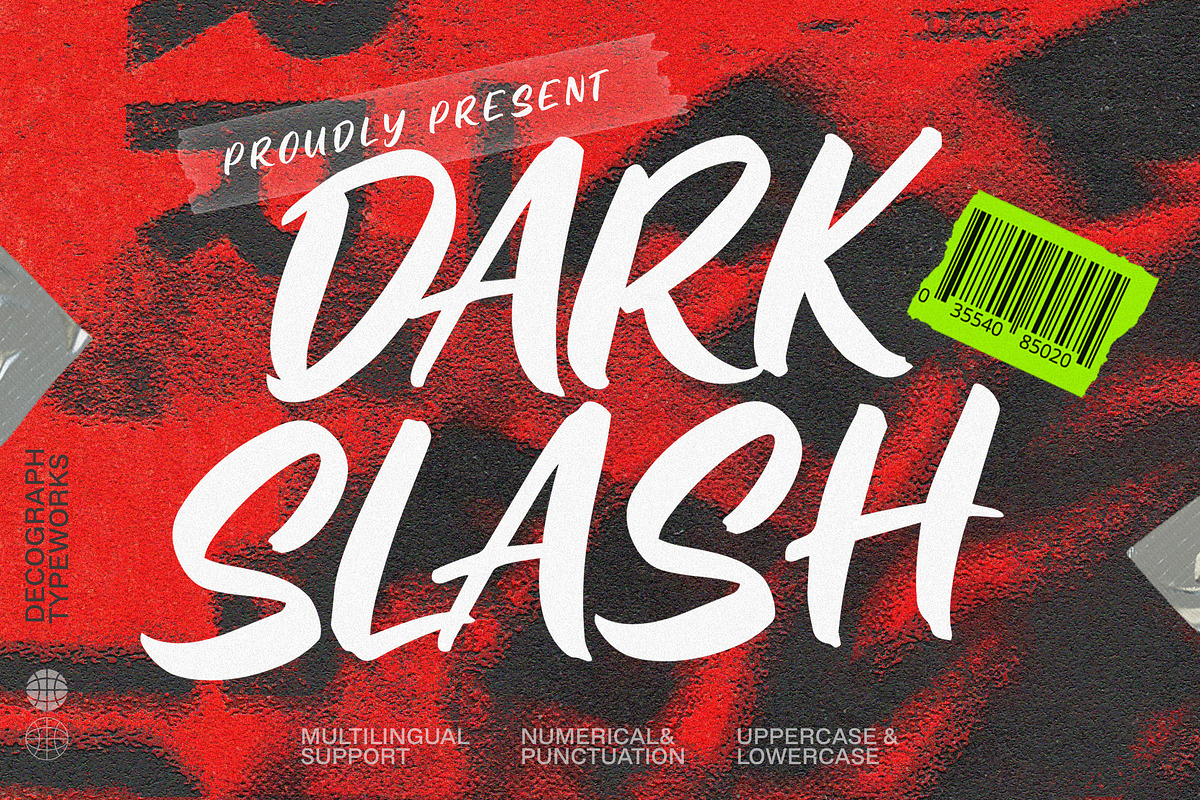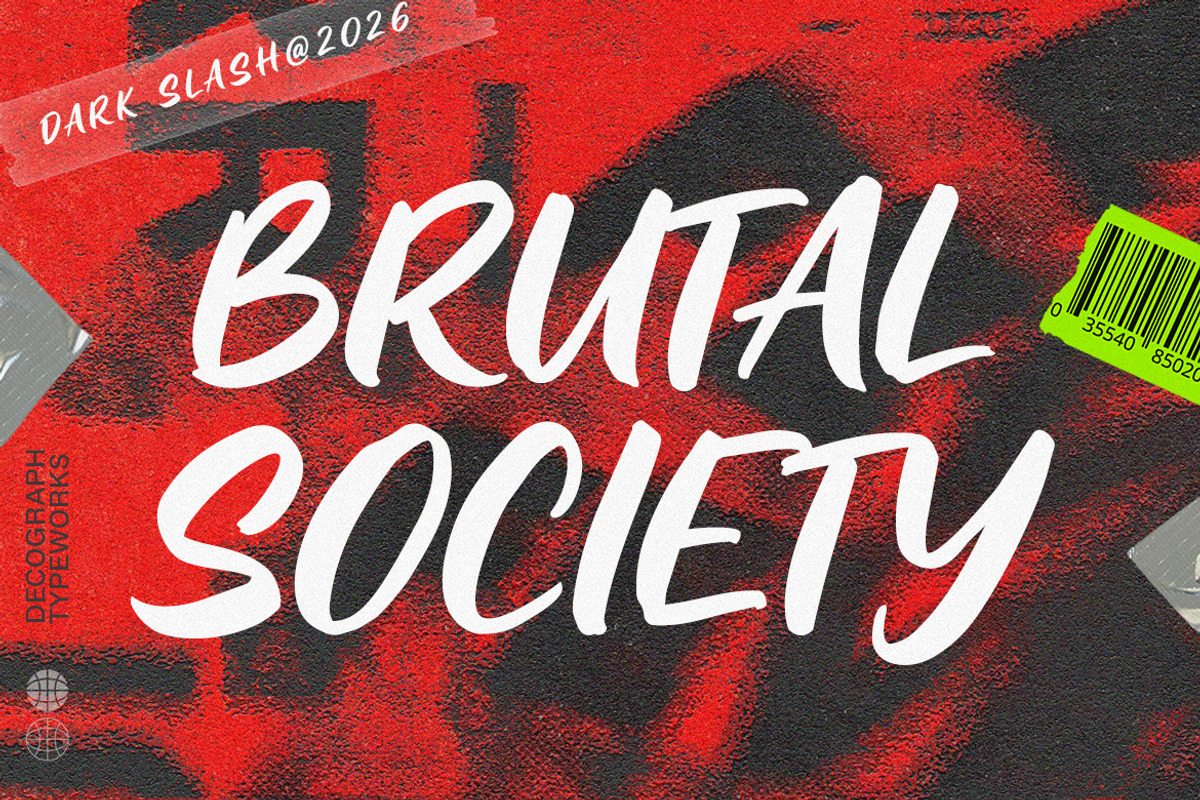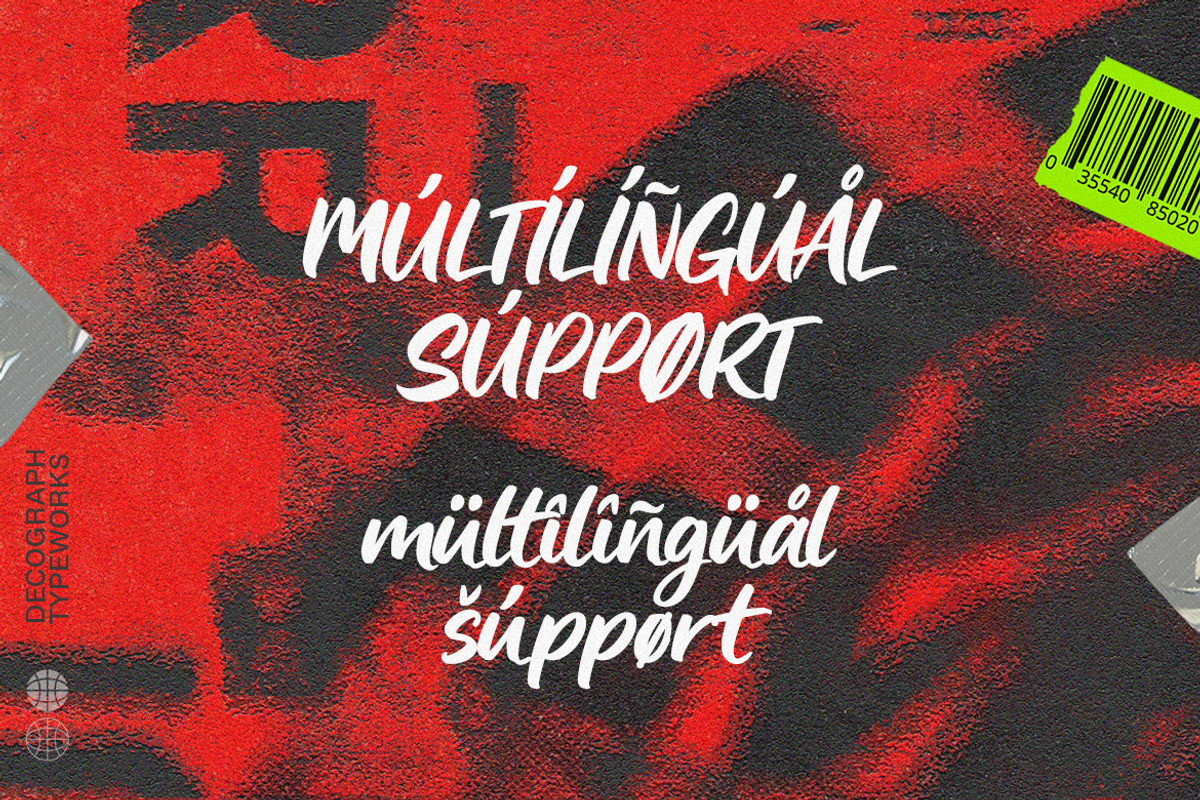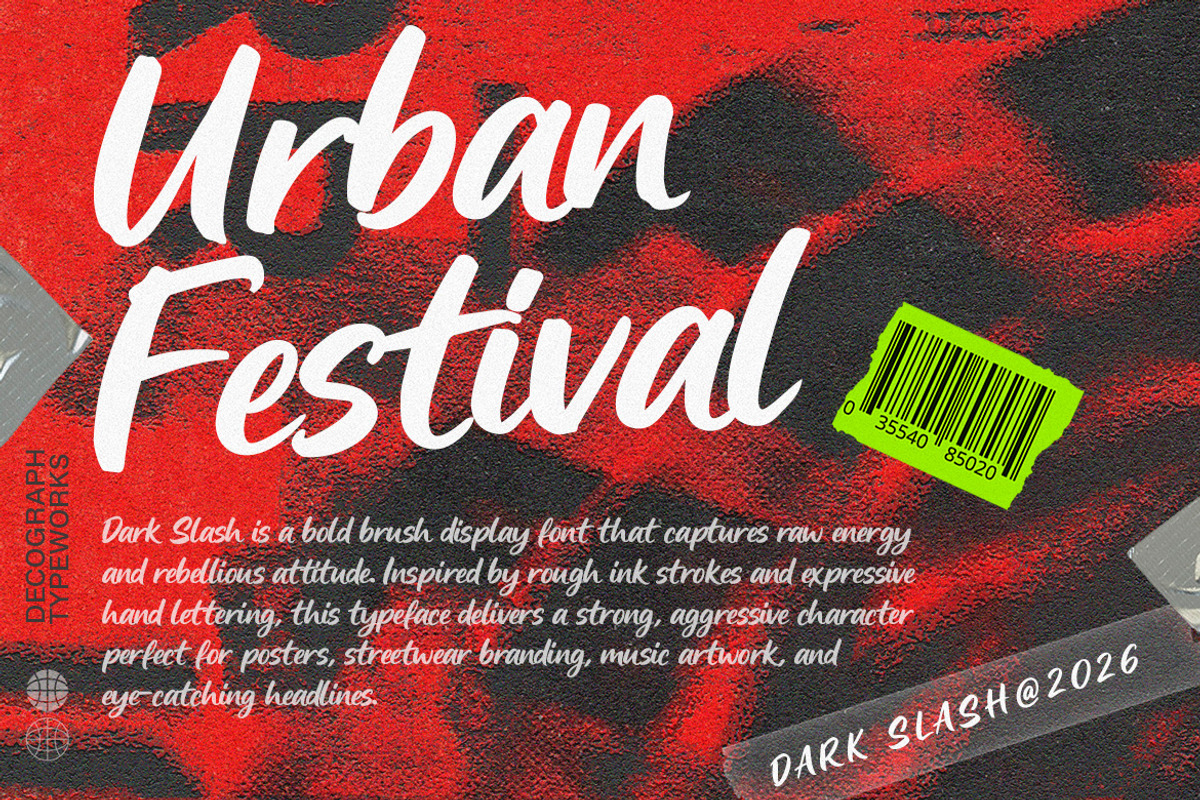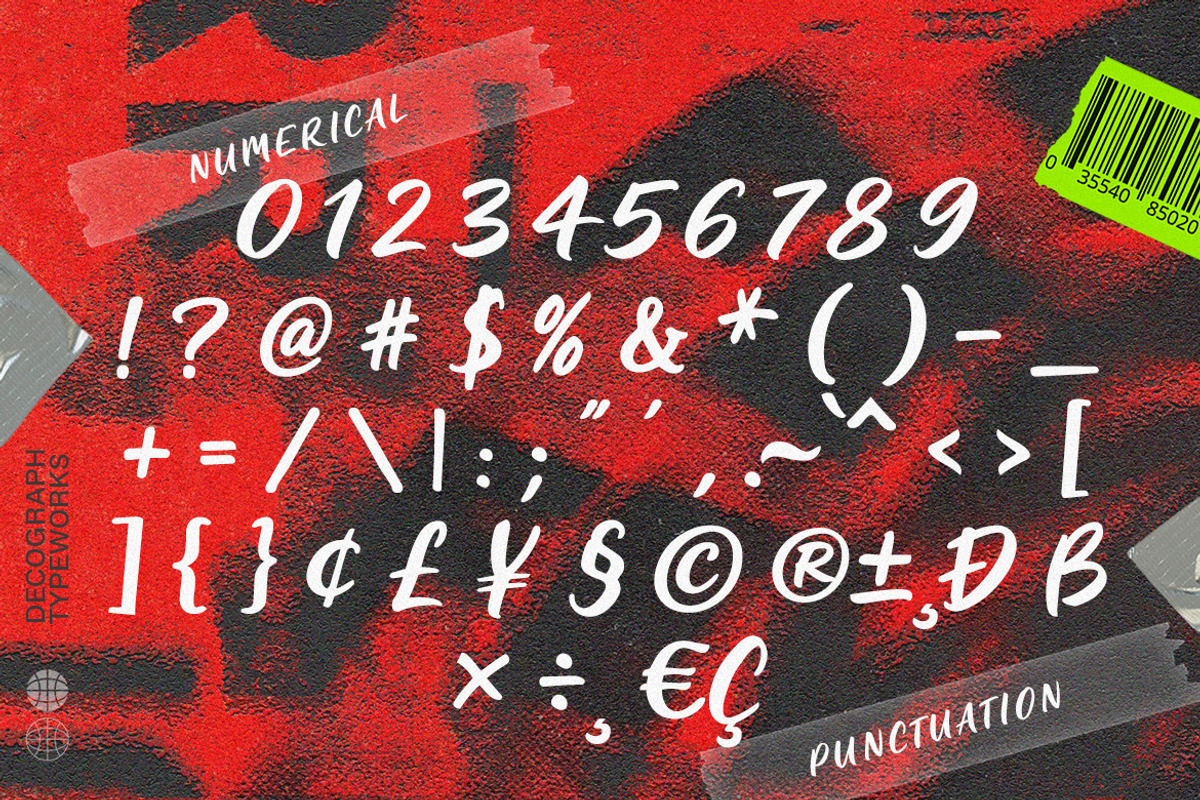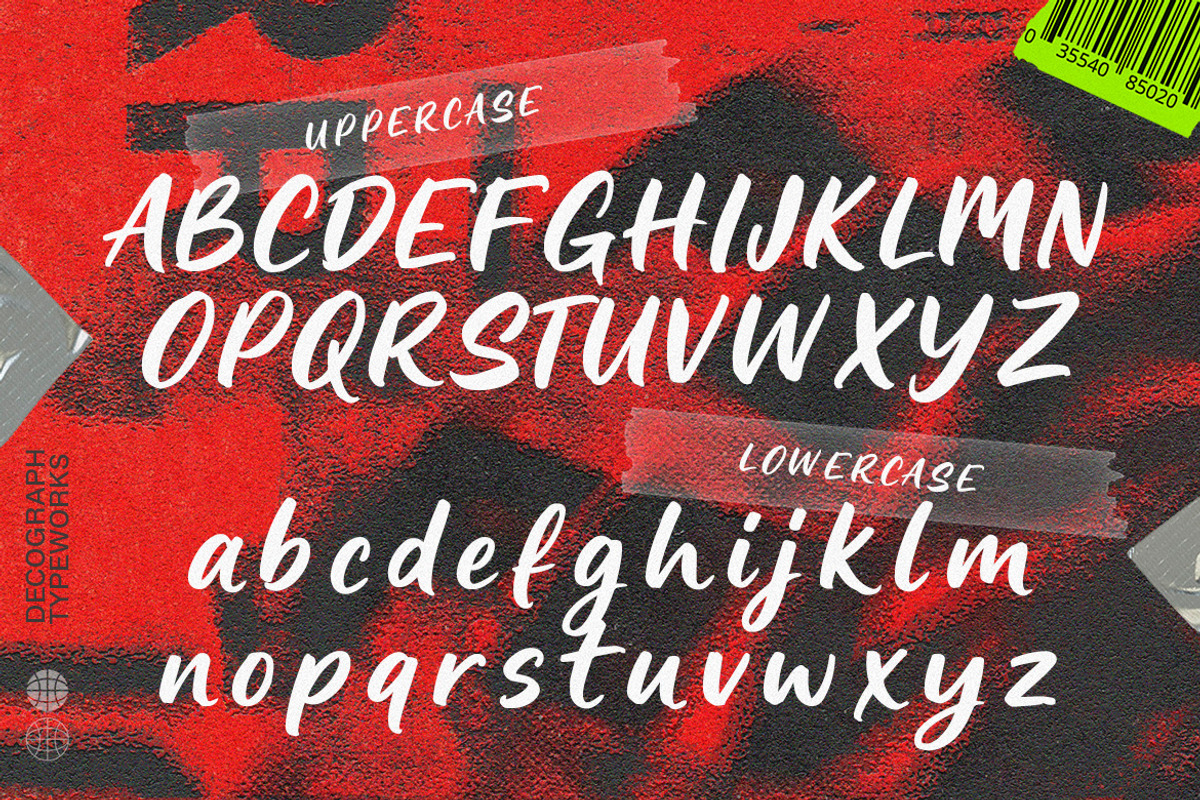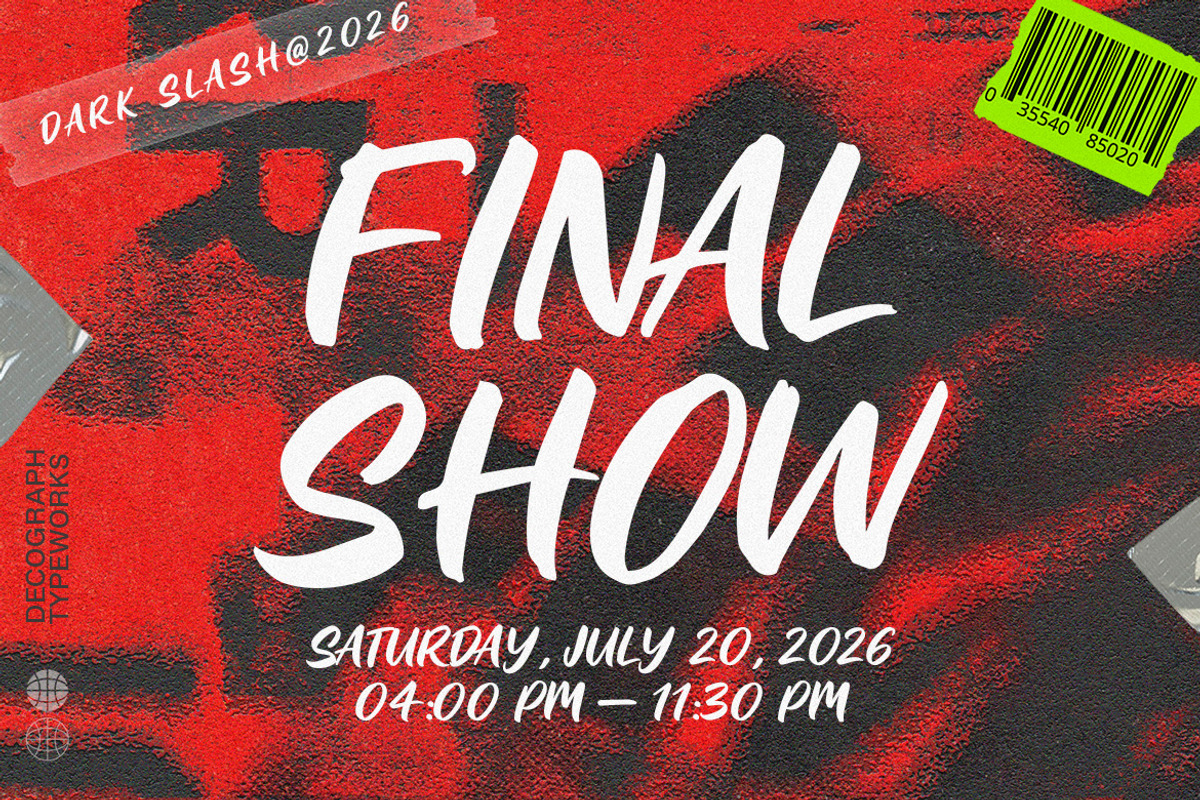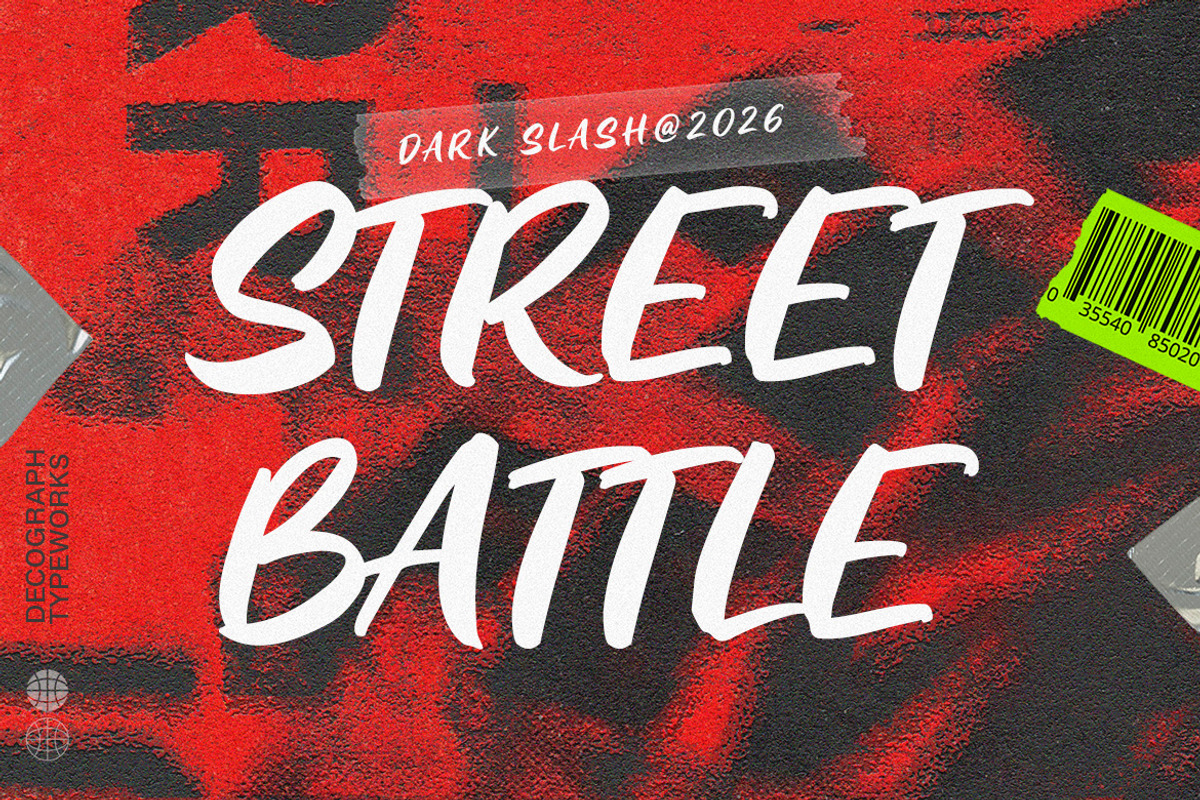
Dark Slash – Bold Brush Script
Dark Slash is a powerful brush script font that delivers raw energy through sharp strokes, fast movement, and expressive hand-painted texture, creating a bold and rebellious visual impact. Its dynamic letterforms and slightly rough edges make it perfect for striking headlines, street-style branding, music artwork, posters, merchandise, and edgy social media content. Designed to feel intense and unapologetic, Dark Slash brings a gritty, modern attitude that instantly commands attention and adds character to any creative project.
- Smooth Kerning